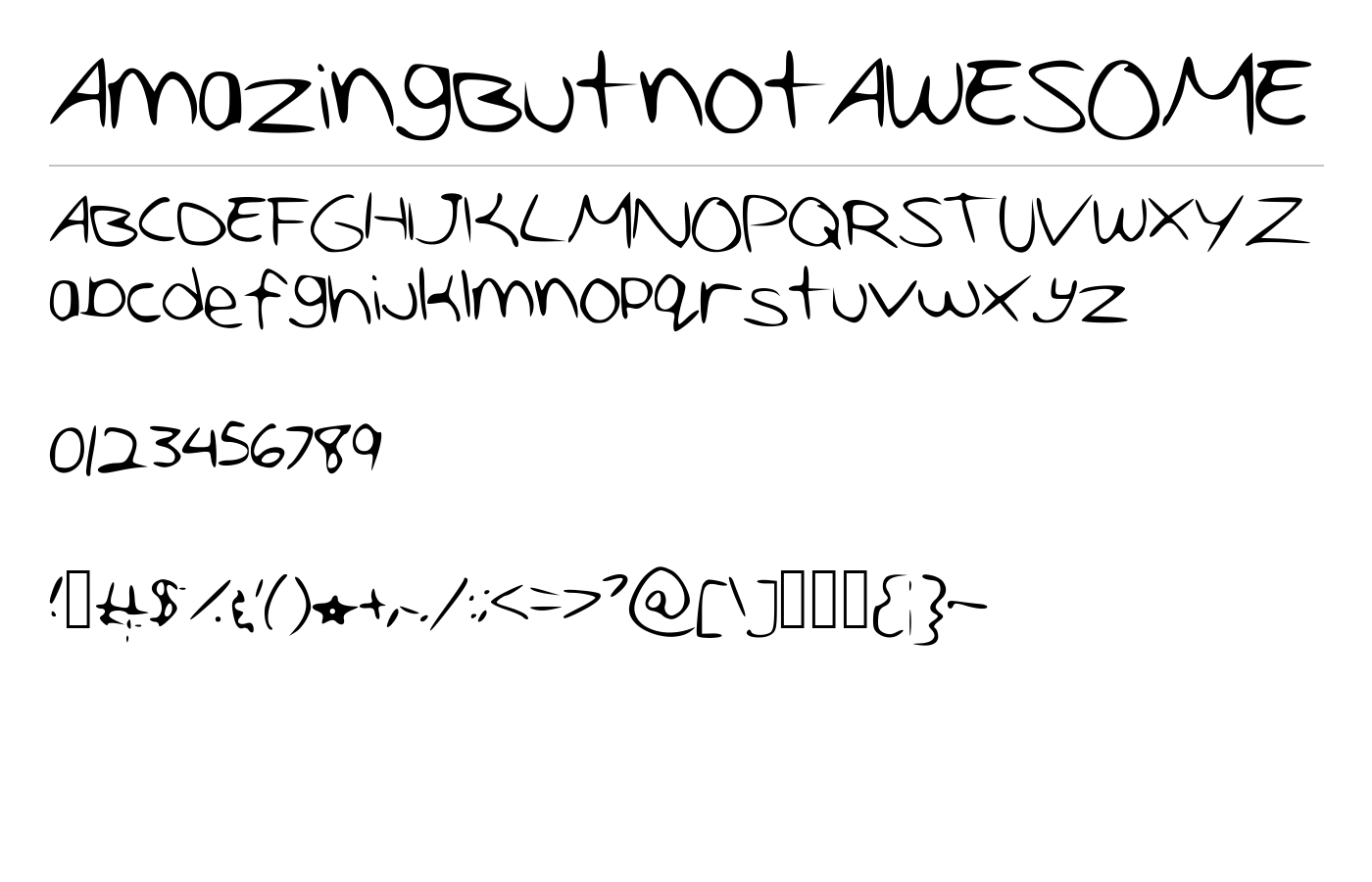
AmazingButnotAWESOME is a playful, handwritten-style sans serif font characterized by its tall, narrow letterforms and lively, irregular strokes that give it a casual and whimsical feel. Its informal and quirky appearance makes it ideal for creative projects, children's materials, and fun branding where a friendly, approachable vibe is desired. This font works best in headlines and display use, adding a unique, expressive touch that stands out.
AmazingButnotAWESOME Font
About AmazingButnotAWESOME Font